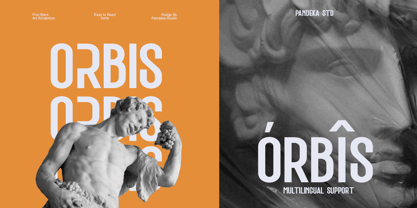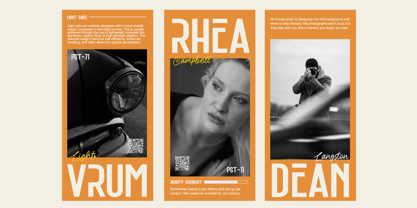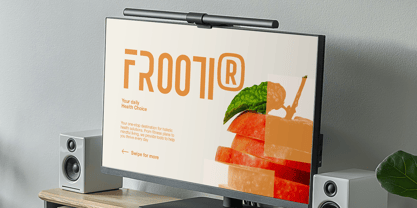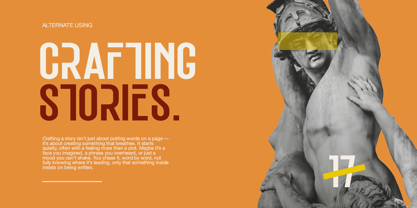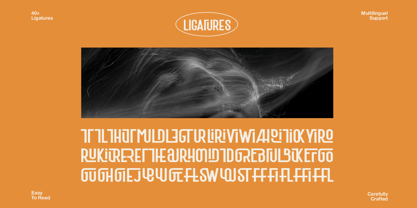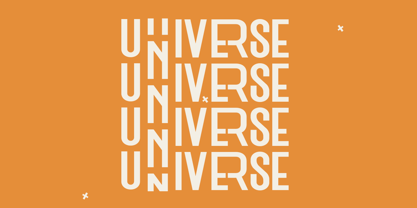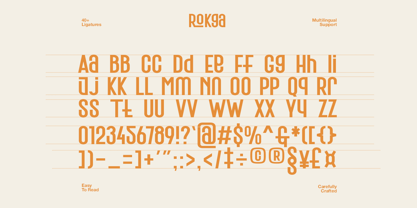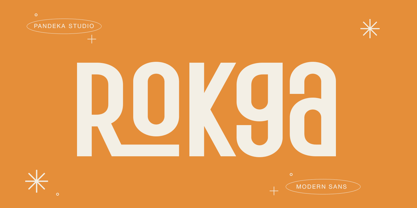
Rokga
by Pandeka Studio
Rokga is a futuristic display sans serif typeface with a bold and modern structure. Designed for branding, editorial layouts, posters, and digital interfaces, Rokga stands out with its tight kerning, unique ligatures, and geometric style. Its uppercase-driven design makes it ideal for headlines and attention-grabbing visuals. Rokga includes uppercase, lowercase, numbers, symbols, and multilingual support, making it versatile for global branding projects.
• 40+ Ligatures and alternates